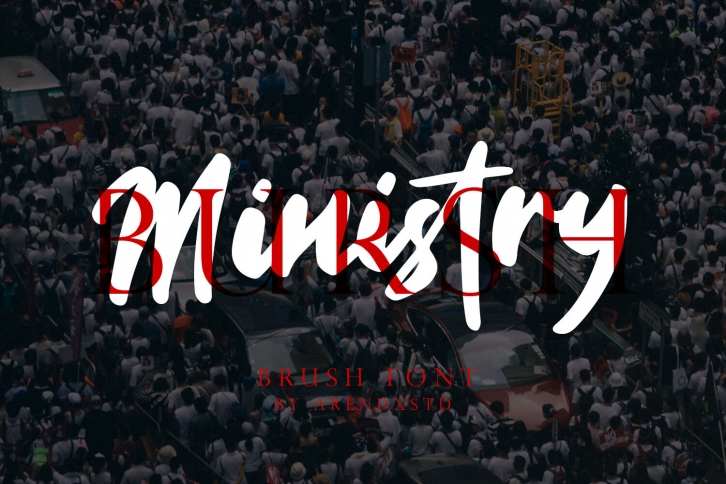
Ministry Brush Font is a font with distinctive handwritten characters wrapped in a bold and strong impression that is perfect for branding projects, logos, wedding designs, media posts, advertisements, product packaging, product designs, labels, photography, watermarks, invitations, stationery , and any project that requires handwritten dishes.